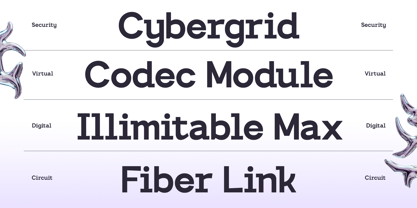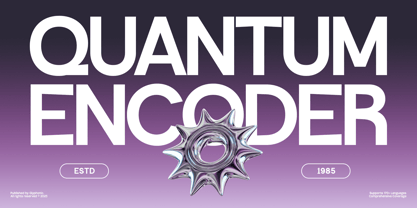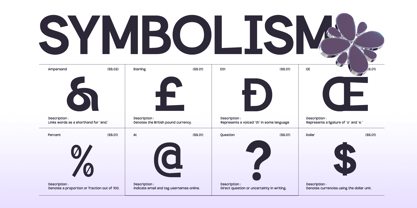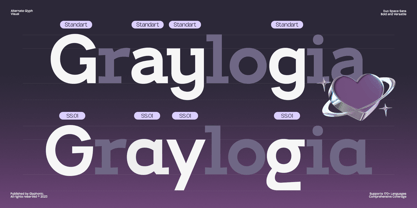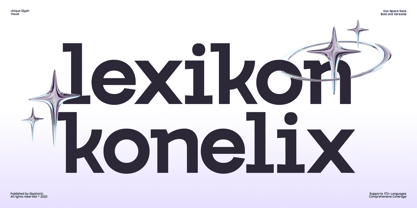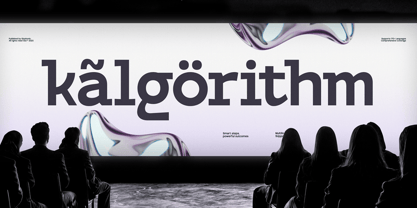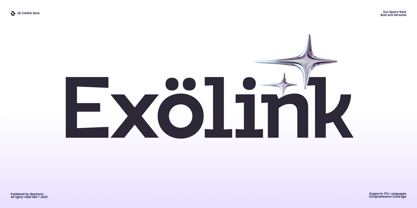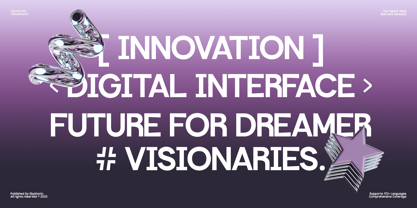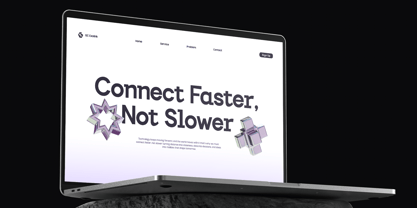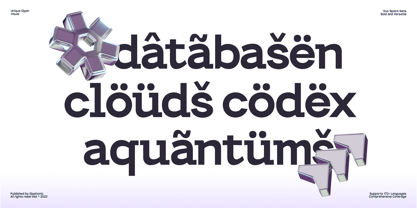
GC Exolink
The GC Exolink Font Family was designed by Muhammad Hafiizh Solana and published by Onyx Studio. GC Exolink contains 1 styles. More about this family
GC Exolink – Infinite Boldness is a contemporary sans serif typeface designed to embody strength, clarity, and futuristic versatility. With clean geometry and assertive strokes, it projects a confident voice that adapts seamlessly across digital and print media. Crafted to balance bold expression with refined simplicity, it’s perfect for branding, editorial layouts, tech-inspired projects, and striking visual identities.
Precise detailing and balanced proportions make GC Exolink adaptable yet distinctive. Whether for sleek interfaces, commanding headlines, or minimalistic posters, this font infuses your typography with power, modernity, and timeless impact.
Features:
• Uppercase & Lowercase
• Numbers & Punctuation
• Modern Geometric Construction
• Multilingual Support (170+ Languages)
Unleash strength, clarity, and infinite boldness in your design with GC Exolink.